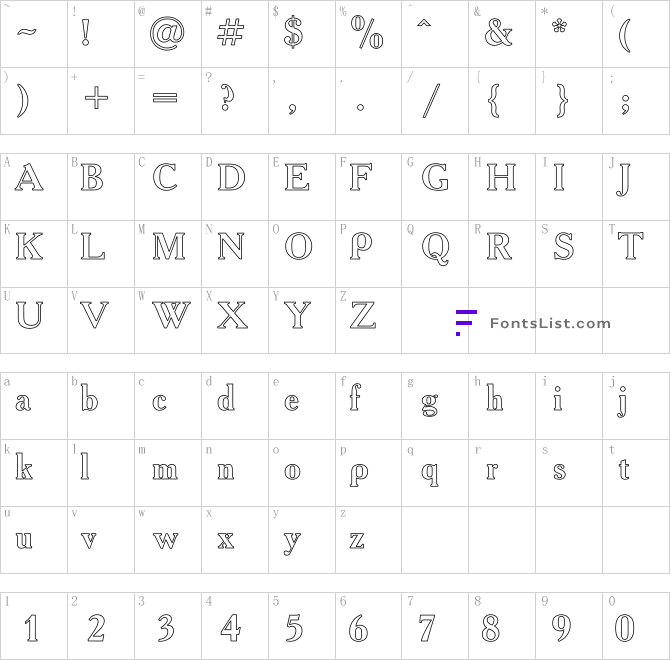
- Font Name:Academy Ho
Academy-Ho.ttf is a very beautiful artistic font, Academy-Ho.ttf is widely used in the design and printing of various books and pictures,Academy-Ho.ttf has a strong visual impact,Academy-Ho.ttf is a commonly used font in newspapers, magazines and books, and is used in posters, e-commerce Poster design, store design, logo design, font design and other fields.Academy-Ho.